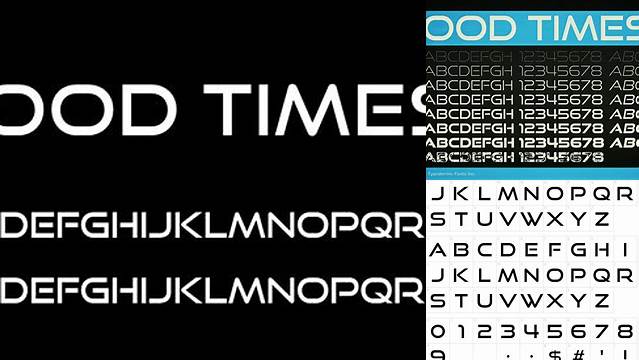
Hey guys! Are you on the hunt for that perfect, retro-cool font to make your designs pop? Look no further! The Good Times Bold font is exactly what you need. This font screams vintage vibes with a modern twist, making it super versatile for a wide range of projects. Whether you're designing posters, logos, or even just jazzing up your social media graphics, Good Times Bold can add that special something to make your work stand out. Plus, who doesn't love a good freebie? Let's dive into where you can snag this awesome font and how to make the most of it. You'll be creating eye-catching designs in no time!
What is Good Times Bold Font?
So, what exactly is the Good Times Bold font? Well, it’s a typeface that perfectly captures the essence of retro aesthetics with its bold, rounded letterforms and playful character. Imagine the kind of fonts you'd see on old-school arcade games or vintage product packaging—that's the vibe we're talking about. Its thick strokes and clean design make it incredibly legible, even at a distance, which is why it’s such a popular choice for headlines, banners, and logos. But don’t let its retro feel fool you; this font is incredibly versatile and can be used in a variety of modern contexts. From adding a touch of nostalgia to your branding to creating eye-catching social media graphics, Good Times Bold is a font that can truly do it all. Its unique charm lies in its ability to evoke a sense of nostalgia while still feeling fresh and contemporary. Whether you’re a seasoned designer or just starting out, this font is a fantastic addition to your toolkit, offering endless possibilities for creative expression and helping you create designs that truly stand out from the crowd.
Why Choose Good Times Bold?
Choosing the right font for your project can be a game-changer, and there are tons of reasons why Good Times Bold font should be at the top of your list. First off, its distinctive retro style immediately grabs attention. In a world saturated with generic sans-serif fonts, Good Times Bold offers a refreshing change, helping your designs stand out and make a memorable impact. This makes it perfect for branding projects where you want to create a strong and unique identity. But it’s not just about aesthetics; Good Times Bold is also highly functional. Its bold weight ensures excellent readability, even in smaller sizes, making it suitable for a wide range of applications, from website headers to print materials. Furthermore, its versatility means you can use it for everything from playful, casual designs to more serious, professional projects. Whether you’re working on a vintage-inspired poster, a modern logo, or anything in between, Good Times Bold can adapt to your needs and elevate your design. Its unique combination of style and functionality makes it an invaluable asset for any designer looking to add a touch of character and flair to their work. So, if you want a font that’s both eye-catching and practical, Good Times Bold is the way to go.
Using Good Times Bold in Graphic Design
So, you've got Good Times Bold font installed and ready to go – awesome! Now, let's talk about how to use it effectively in your graphic design projects. Good Times Bold is a versatile font, but it shines brightest when used strategically. Consider using it for headlines, logos, and short bursts of text where you want to make a big impact. Its bold weight and distinctive style make it perfect for catching the eye and conveying a sense of fun and nostalgia. When using Good Times Bold, think about the overall aesthetic you're trying to achieve. It pairs well with other retro fonts for a cohesive vintage look, but it can also be surprisingly effective when contrasted with more modern, minimalist fonts. Experiment with different combinations to see what works best for your project. Don't be afraid to play around with color, too. Good Times Bold looks fantastic in bright, vibrant colors that complement its playful character. Think about using it in posters, flyers, and social media graphics where you want to inject some personality and flair. Remember, the key is to use it sparingly and deliberately. Overusing Good Times Bold can make your design feel cluttered or overwhelming. Instead, use it to highlight key elements and create a focal point. With a little creativity, you can use Good Times Bold to create designs that are both eye-catching and effective.
Good Times Bold for Logos and Branding
When it comes to logos and branding, the Good Times Bold font can be a total game-changer. Its distinctive retro style makes it an excellent choice for brands looking to evoke a sense of nostalgia, fun, or vintage charm. Imagine a logo for a retro-themed cafe, a vintage clothing store, or an arcade bar – Good Times Bold would fit right in! The font's bold weight ensures that your brand name stands out and is easily recognizable, even at a distance. Its unique character adds personality and helps create a memorable brand identity. When using Good Times Bold for branding, think about the overall message you want to convey. Is your brand playful and energetic? Or does it have a more sophisticated, vintage feel? The way you use the font can help communicate these qualities to your audience. Consider pairing Good Times Bold with other design elements that reinforce your brand's personality. Use colors, imagery, and typography that complement the font and create a cohesive look and feel. Don't be afraid to experiment with different variations of the font, such as using a slightly lighter weight or adding subtle effects like shadows or gradients. Just be sure to maintain consistency across all your branding materials to ensure that your brand remains recognizable and memorable. With a little creativity, Good Times Bold can help you create a logo and brand identity that truly stands out from the crowd.
Pairing Good Times Bold with Other Fonts
One of the keys to using Good Times Bold font effectively is knowing how to pair it with other fonts. While Good Times Bold is a fantastic font on its own, it often needs a supporting cast to truly shine. The goal is to find fonts that complement Good Times Bold without overpowering it. Think of Good Times Bold as the star of the show, and the other fonts as the supporting actors. One popular approach is to pair Good Times Bold with a clean, minimalist sans-serif font. This creates a nice contrast between the retro, playful vibe of Good Times Bold and the modern, understated feel of the sans-serif font. Some good options include Open Sans, Lato, or Montserrat. These fonts are highly legible and won't compete with Good Times Bold for attention. Another approach is to pair Good Times Bold with a more traditional serif font. This can create a sophisticated, vintage-inspired look that's perfect for branding or editorial design. Look for serif fonts that have a classic, elegant feel, such as Georgia, Times New Roman, or Playfair Display. When pairing fonts, pay attention to the overall balance of your design. Make sure that the fonts work together harmoniously and don't clash. Experiment with different font sizes, weights, and styles to see what works best. Remember, the goal is to create a visually appealing and easy-to-read design that effectively communicates your message. With a little experimentation, you can find the perfect font pairings to make Good Times Bold truly shine.
Good Times Bold for Social Media Graphics
If you're looking to spice up your social media graphics, the Good Times Bold font is your new best friend! Its retro charm and bold presence make it perfect for grabbing attention in a crowded feed. Whether you're creating Instagram posts, Facebook ads, or Twitter headers, Good Times Bold can help your content stand out and make a memorable impression. One of the best ways to use Good Times Bold on social media is in headlines and captions. Its bold weight ensures that your message is easily readable, even on small screens. Use it to highlight key information, announce promotions, or simply add some personality to your posts. Consider using Good Times Bold in combination with eye-catching visuals, such as vibrant colors, bold patterns, or engaging photos. This will help create a cohesive and visually appealing design that grabs the viewer's attention and encourages them to engage with your content. Don't be afraid to experiment with different styles and formats. Try using Good Times Bold in animated text, video overlays, or even custom stickers. The possibilities are endless! Just remember to keep your designs consistent with your brand's overall aesthetic and tone. Use Good Times Bold in a way that reflects your brand's personality and helps you connect with your audience. With a little creativity, you can use Good Times Bold to create social media graphics that are both visually appealing and highly effective.
Creating Retro Designs with Good Times Bold
If you're all about that vintage vibe, then Good Times Bold font is an absolute must-have for creating retro designs. This font just oozes nostalgia and is perfect for projects that need a touch of old-school charm. Think about using Good Times Bold for posters, flyers, and album covers that hark back to the good old days. To really nail that retro look, consider pairing Good Times Bold with other vintage-inspired design elements. Use classic color palettes like muted pastels, warm earth tones, or bold primary colors. Add some texture with vintage paper backgrounds or distressed effects. Incorporate retro illustrations, such as pin-up girls, vintage cars, or old-school advertisements. When using Good Times Bold in your retro designs, pay attention to the overall composition. Try using asymmetrical layouts, bold typography, and unexpected design elements to create a visually dynamic and engaging design. Don't be afraid to experiment with different styles and techniques. Try using Good Times Bold in combination with hand-drawn elements, watercolor effects, or even pixel art. The key is to have fun and let your creativity shine. With a little imagination, you can use Good Times Bold to create retro designs that are both authentic and eye-catching. So go ahead, grab your Good Times Bold font, and start creating some retro magic!
Creating a Consistent Brand Image with Good Times Bold Font
One of the most important aspects of building a successful brand is creating a consistent brand image. This means that your brand's visual elements, such as your logo, colors, and typography, should be consistent across all your marketing materials. Using the Good Times Bold font consistently can be a great way to create a recognizable and memorable brand identity. First, define your brand's personality and values. What kind of message do you want to convey to your audience? Are you playful and energetic, or sophisticated and refined? Choose a brand personality that aligns with your target audience and your business goals. Next, create a visual style guide that outlines your brand's visual elements, including your logo, colors, typography, and imagery. This style guide will serve as a reference for all your marketing materials, ensuring that your brand image remains consistent. Use Good Times Bold consistently in your logo, website, social media graphics, and print materials. This will help create a cohesive and recognizable brand identity. However, be careful not to overuse Good Times Bold. Using it sparingly and strategically can be more effective than using it everywhere. Consider using Good Times Bold for headings and titles, and then using a more neutral font for body text. Also, be consistent with your color palette. Choose a few colors that complement Good Times Bold and use them consistently across all your marketing materials. Finally, regularly review your brand image and make sure it's still aligned with your brand's personality and values. As your business evolves, your brand image may need to be updated to reflect your new goals and priorities. By creating a consistent brand image with Good Times Bold font, you can build brand recognition, increase customer loyalty, and ultimately drive more sales.